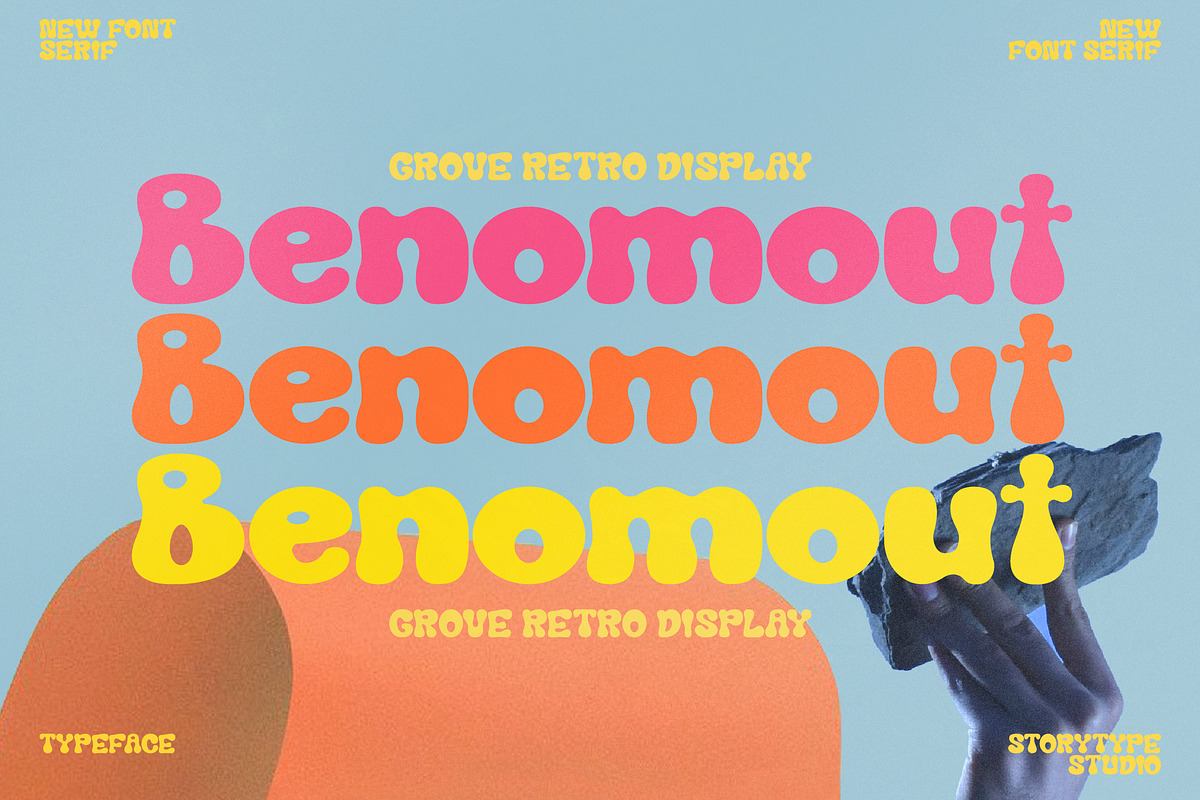
Benomout Grove Retro Display Font is perfect for vintage outdoor branding, retro camping promotions, nostalgic nature campaigns, throwback adventure materials, classic park signage, vintage lodge branding, retro wilderness graphics, nostalgic outdoor gear packaging, vintage forest retreat materials, classic hiking club designs, retro conservation campaigns, and charming outdoor communications.
Benomout Grove Retro Display Font is exciting because it captures the nostalgic charm and adventurous spirit of classic outdoor exploration through its distinctive retro letterforms that evoke memories of vintage national park signage, old-school camping adventures, and the timeless appeal of nature escapes from simpler times. This captivating typeface features bold character construction with retro styling that reflects the rugged authenticity of vintage outdoor culture and the enduring romance of wilderness exploration. The font's nostalgic aesthetic creates instant emotional connections with audiences who appreciate outdoor heritage, vintage adventure aesthetics, and the timeless call of the wild.
This adventurous typography solution transforms ordinary communications into nostalgic outdoor experiences through its authentic retro aesthetic and nature-inspired design language. Benomout Grove Retro Display Font Free Download enables designers and outdoor brands to access premium vintage typography that instantly adds nostalgia, adventure spirit, and retro outdoor appeal to any creative project. The font's carefully crafted retro elements ensure authentic vintage character while maintaining excellent readability and distinctive outdoor presence.
Outdoor gear companies, national parks, and adventure brands trust Benomout Grove Retro Display Font for its ability to communicate heritage, outdoor authenticity, and vintage adventure values to audiences seeking genuine wilderness experiences and nostalgic outdoor connections. The typeface's rugged construction performs beautifully across various applications, from intimate outdoor communications to large-scale vintage adventure campaigns. Its extensive character support includes multilingual capabilities and outdoor-themed design elements that enhance authentic vintage brand presentations.
The creative inspiration behind Benomout Grove Retro Display Font draws from classic national park signage, vintage outdoor advertising, and the golden age of American wilderness exploration that shaped outdoor culture and adventure tourism. This heritage-focused approach creates a font that feels genuinely vintage while maintaining contemporary appeal across different outdoor contexts and adventure brand expressions.
Whether creating outdoor brand identities, vintage adventure materials, or nostalgic wilderness campaigns, this retro display font delivers exceptional results that capture the essence of classic outdoor exploration and vintage adventure spirit. Download Benomout Grove Retro Display Font today and discover how premium vintage outdoor typography can transform your design projects into nostalgic expressions of adventure heritage, wilderness authenticity, and the timeless appeal that defines the most beloved outdoor experiences and nature connections.